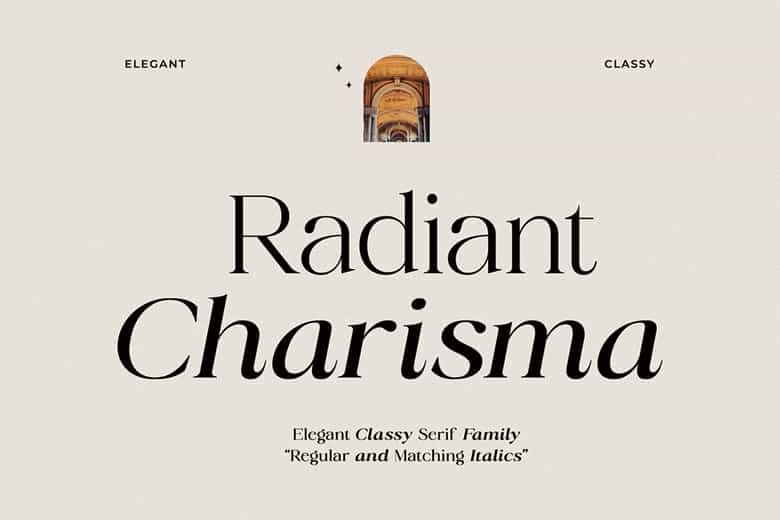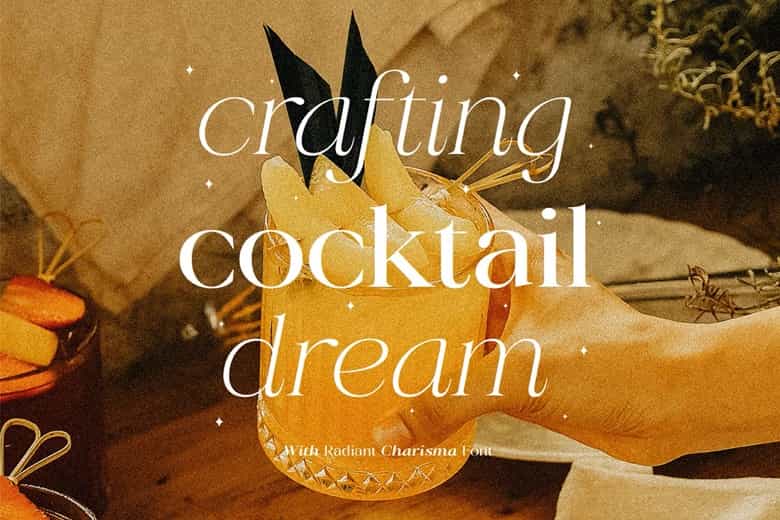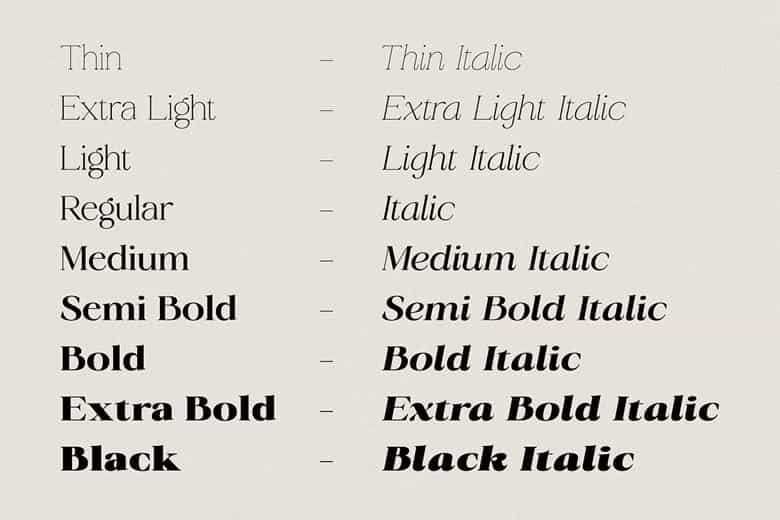
Radiant Charisma is a neat and stylish serif typeface. There are 18 weights to choose from and matching italics for each one. There are both static and variable files accessible as well. Easily fits in branding, logo, title, poster and similar design formats.